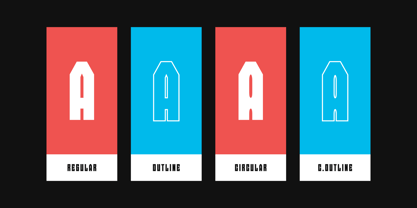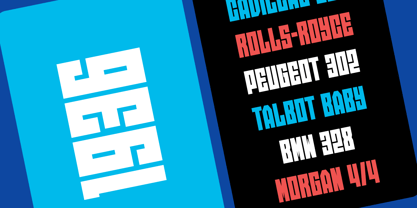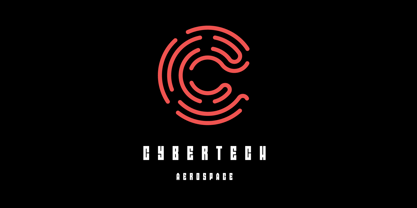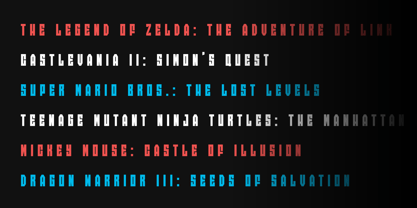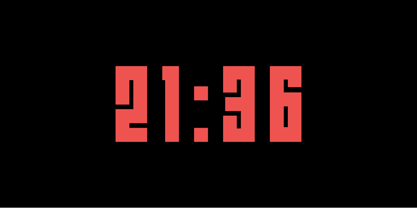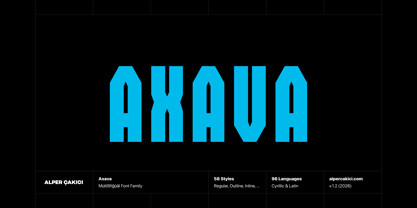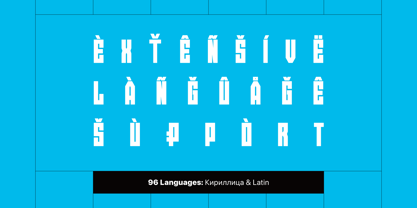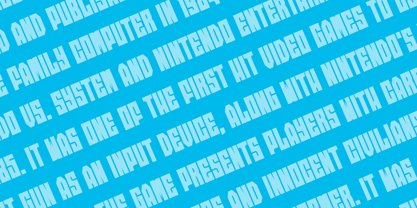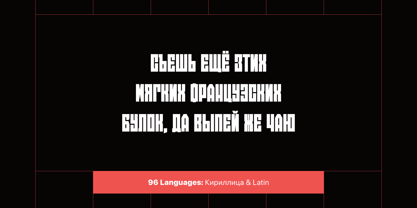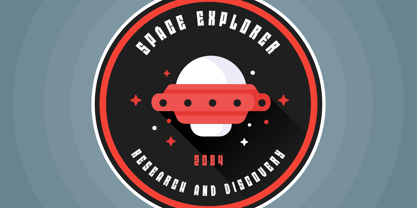
Axava
by AlperCakici
The Axava Font Family was designed by Alper Çakıcı and published by AlperCakici. Axava contains 58 styles and family package options. More about this family
🚀 Axava — A Typeface Engineered for Modern Tech Axava is a next-generation type system built for technology, startups, and forward-looking brands. Designed with sharp, rectangular, block-inspired geometry, Axava delivers a clean, powerful, and highly structured visual voice suited for digital-first environments. With 58 coordinated styles, Axava functions like a modular design system — moving from precise technical clarity to expressive textured, inline, rimmed, brush, and rounded variations while staying visually consistent. Whether you're building a startup identity, SaaS platform, AI product, game interface, or futuristic brand, Axava gives you a scalable typography system designed for modern creation. ⚙️ Why Tech Designers Choose Axava 58-Style Modular System A flexible typography toolkit including Angular, Circular, Rounded, Inline, Rimmed, Rough, Brush, Pencil, Noise, Outline, Eroded — each with Italics. Sharp • Rectangular • Brutal Geometry Block-like construction and engineered cuts create a strong, technical, futuristic tone ideal for digital products and innovation brands. Built for Digital Products Perfect for UI/UX, dashboards, apps, SaaS, AI tools, gaming, tech branding, motion graphics, and product interfaces. Screen-Optimized Clarity Clean rendering across UI, high-resolution screens, print, and large-scale digital displays. Global Language Support Supports 96 languages (Latin + Cyrillic) for international products and scalable branding.
Designers: Alper Çakıcı
Foundry: AlperCakici